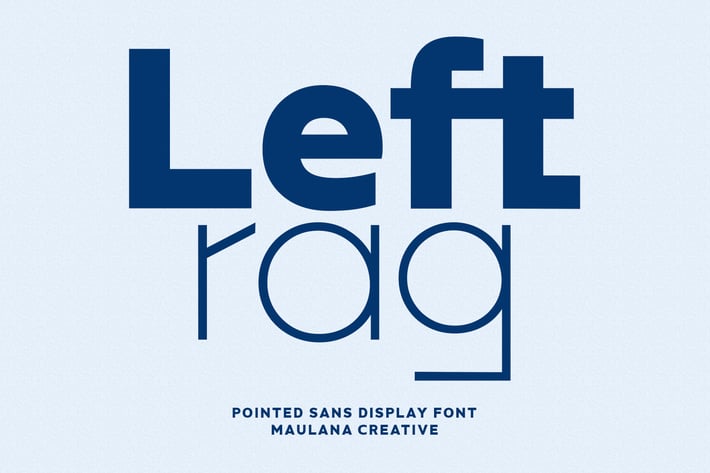
Leftrag Sans Serif Display Font
Leftrag is a contemporary sans serif display font. Bold stroke, fun character with a bit of ligatures and alternates. To give you an extra creative work. Leftrag font support multilingual more than 100+ language. This font is good for logo design, Social media, Movie Titles, Books Titles, a short text even a long text letter and good for your secondary text font with script or serif. Make a stunning work with Leftrag font.